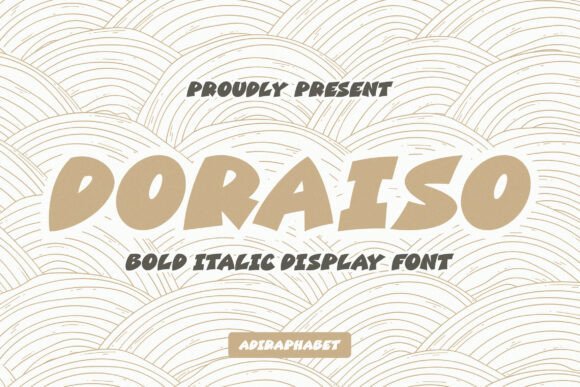
Elevate Your Design with the Timeless Elegance of Doraiso Font
Have you ever been inspired by a beautifully crafted label or a distinctive logo, and suddenly felt the urge to create something just as stunning? That’s the magic of typography, and we’re here to introduce you to a font that will make your creative dreams come true – the Doraiso Font. This elegant Japanese-style display font is designed to breathe life into your designs, making it perfect for food labels or packaging that exudes sophistication and style.
As a designer, you know how important it is to choose a font that not only communicates effectively but also leaves a lasting impression. That’s where the Doraiso Font comes in – its fluid and precise lines make it an exceptional choice for logo creation, allowing you to craft a brand identity that truly stands out. With the Doraiso Font, your designs will shine with a level of elegance and sophistication that will leave your audience in awe.
Doraiso Font Key Features
- Unique Characteristics: Doraiso Font features a distinctive, modern design with a mix of rounded and geometric shapes, making it ideal for use in digital and print media, such as logos, branding, and advertising materials.
Doraiso Font Review
Overall, I think the Doraiso Font is a solid choice for designers, but it has its limitations. Let’s start with what works well:
- ✨ High-quality vector graphics: The font’s crisp lines and smooth curves make it perfect for high-resolution printing and digital applications.
- ✨ Unique design: The Doraiso Font has a distinctive, modern feel that sets it apart from more traditional fonts.
- ✨ Good legibility: The font is easy to read, even at small sizes, which is essential for body text and captions.
- ⚠️ Limited character set: The Doraiso Font only includes a limited range of characters, which may not be suitable for languages that require more complex typography.
- ⚠️ Not suitable for bold text: The font’s design is not well-suited for bold or italic text, which can make it difficult to use in situations where emphasis is required.
- ⚠️ Not widely supported: The Doraiso Font may not be supported by all operating systems or devices, which can limit its use in certain applications.
Overall, I would recommend the Doraiso Font for designers who need a unique, high-quality font for specific projects. However, it may not be the best choice for general use or for projects that require a wide range of typography options.
Getting the Most Out of Doraiso Font
Use Doraiso Font for headings, titles, and emphasis in your designs.
Combine Doraiso Font with other fonts for a unique and eye-catching look.
Experiment with different font sizes and styles to add visual interest.
Doraiso Font is ideal for:
Food and beverage branding
Japanese-inspired designs
Modern and minimalist aesthetics